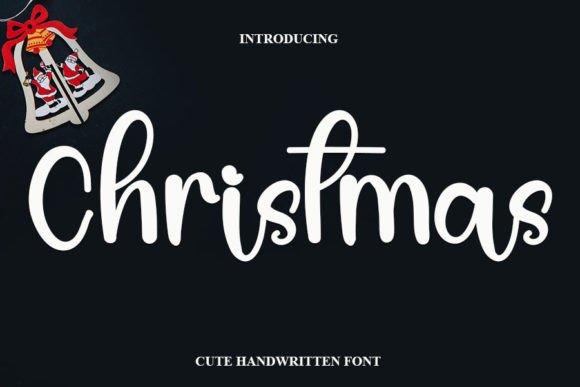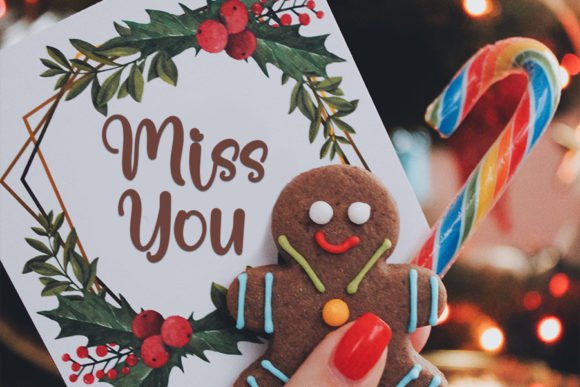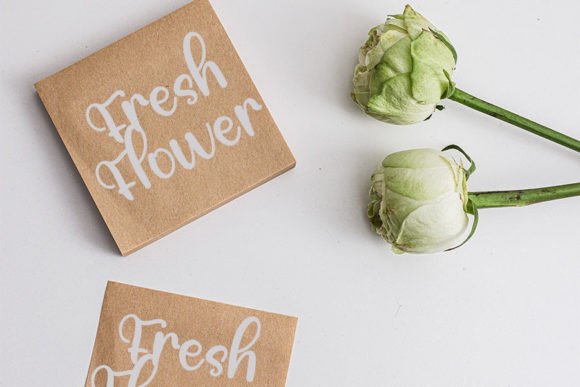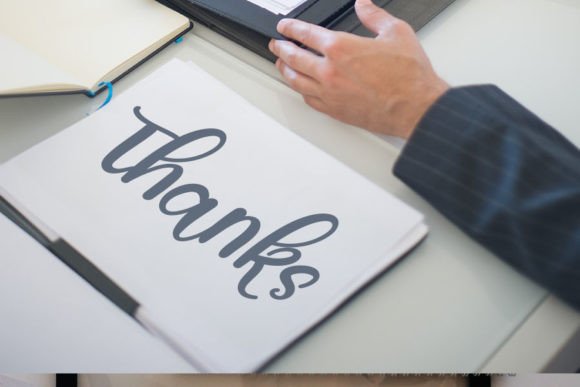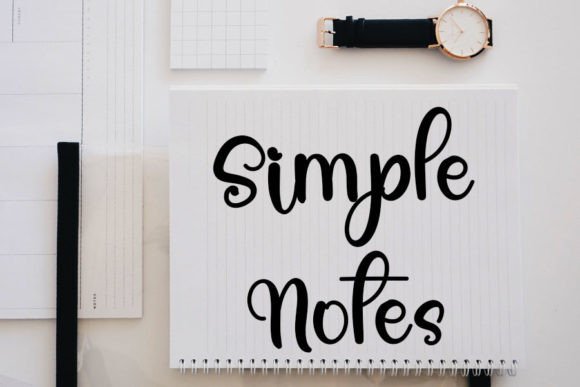
Christmas Font
Christmas font is a warm and friendly handwritten typeface designed to capture the joyful spirit of the holiday season. This font has been carefully crafted to become a favorite for designers looking to add a personalized and festive touch to their projects. With its charming and approachable style, Christmas font brings life and cheer to every creative idea.
A Festive and Inviting Style
The Christmas font’s handwritten appearance makes it ideal for projects that require a cozy, heartfelt vibe. Its smooth and balanced letterforms create an inviting look that works wonderfully in holiday-themed designs. Whether you’re crafting greeting cards or seasonal branding, this font will help you convey warmth and celebration.
Perfect Uses for Christmas Font
Christmas font fits beautifully in many festive contexts, including:
• Holiday greeting cards and invitations
• Seasonal logos and branding
• Social media campaigns and advertisements
• Gift tags and product labels
• Winter-themed posters and decorations
Its friendly and joyful style ensures your work resonates with the spirit of the season.